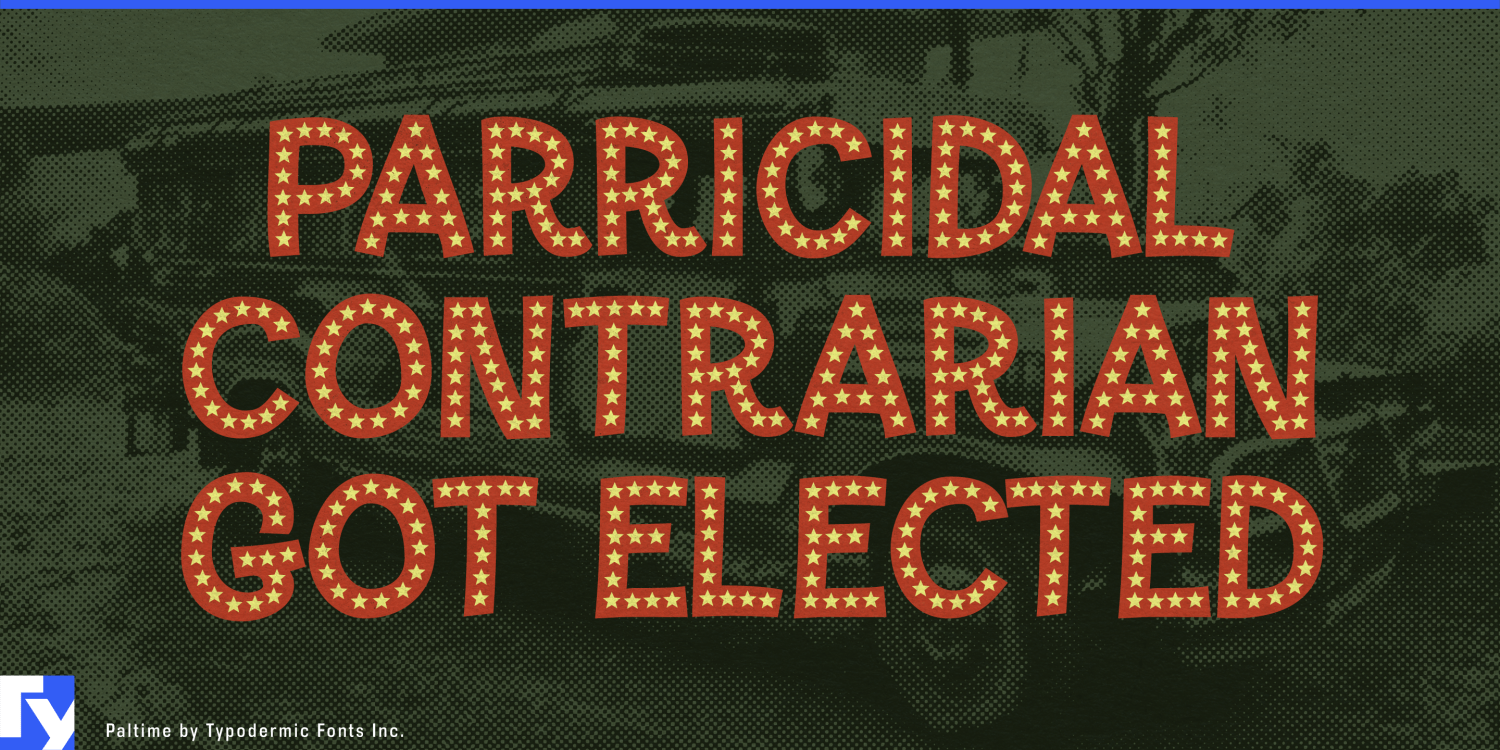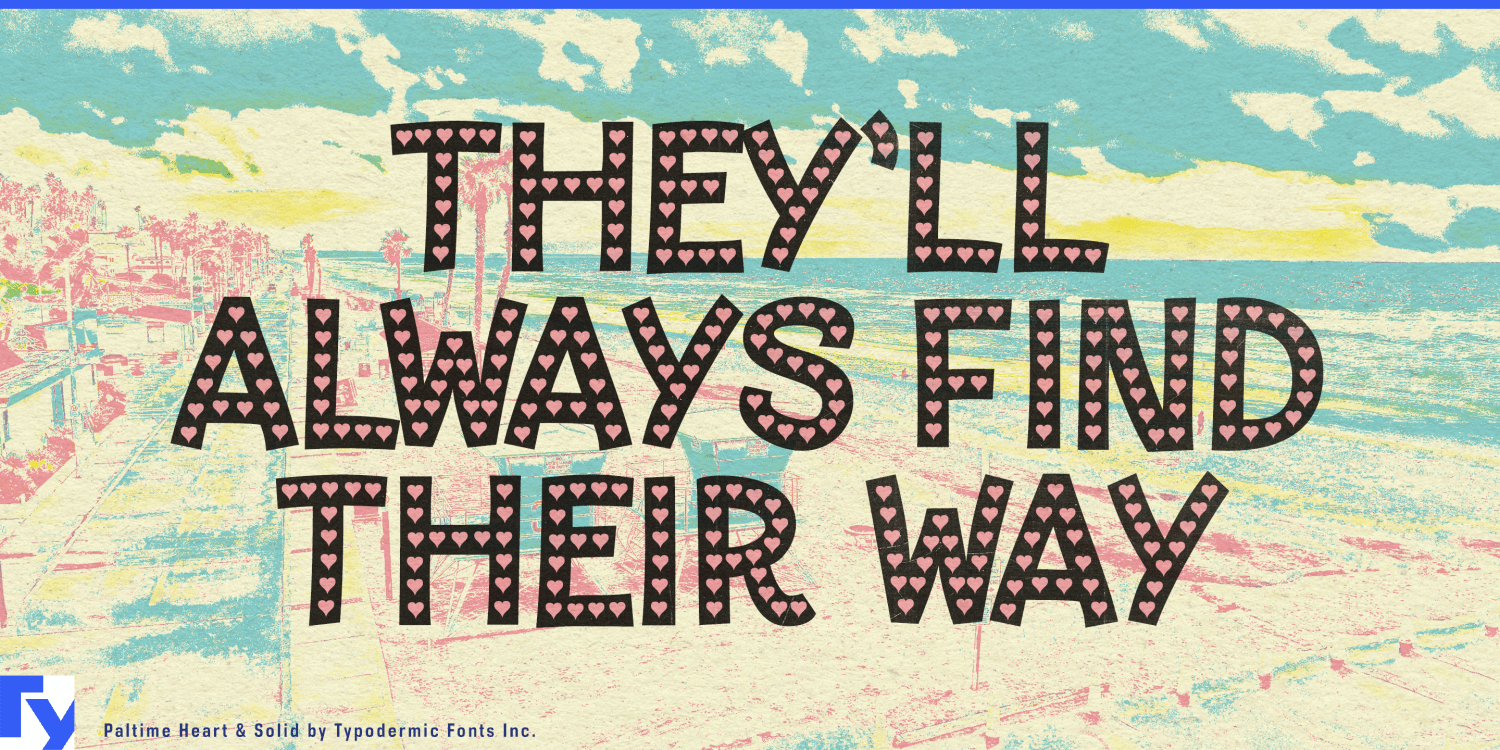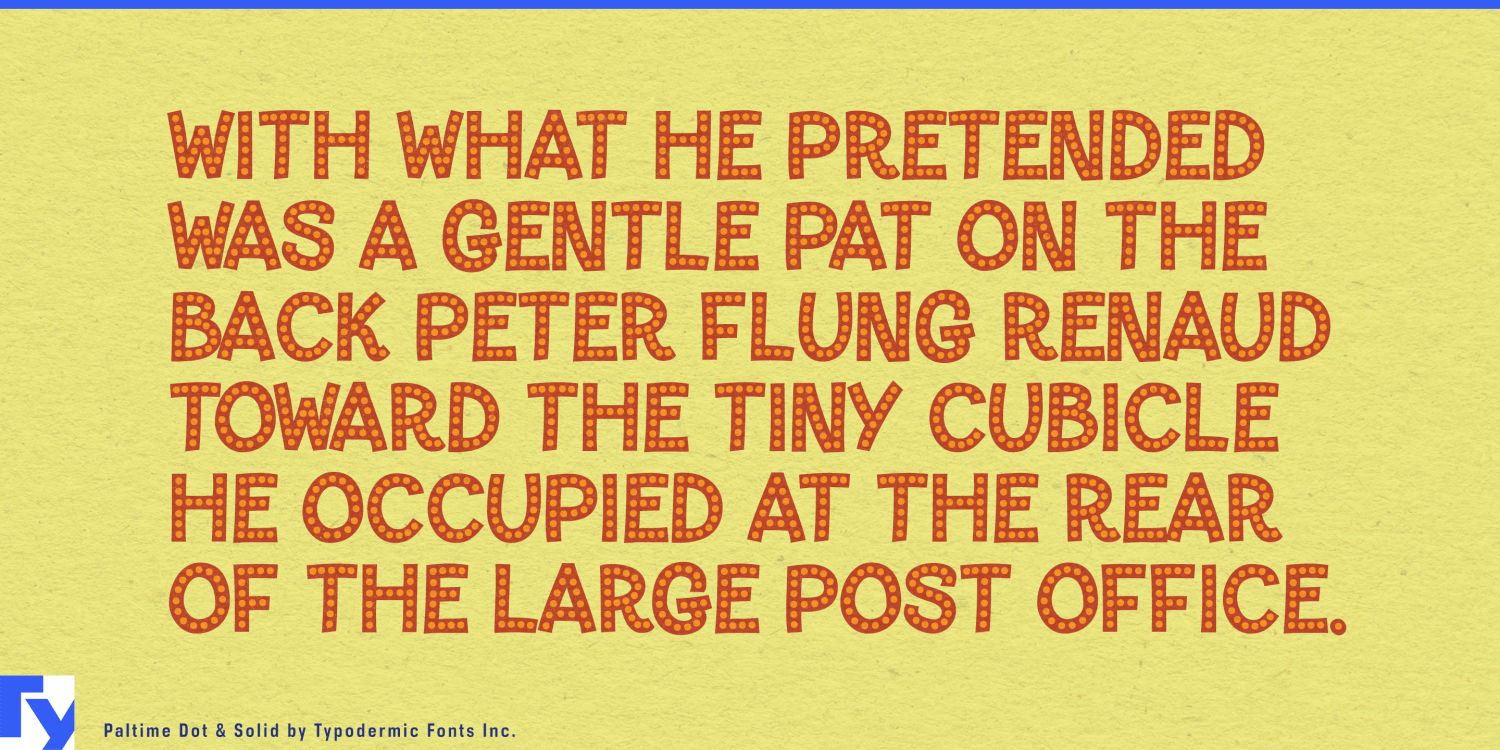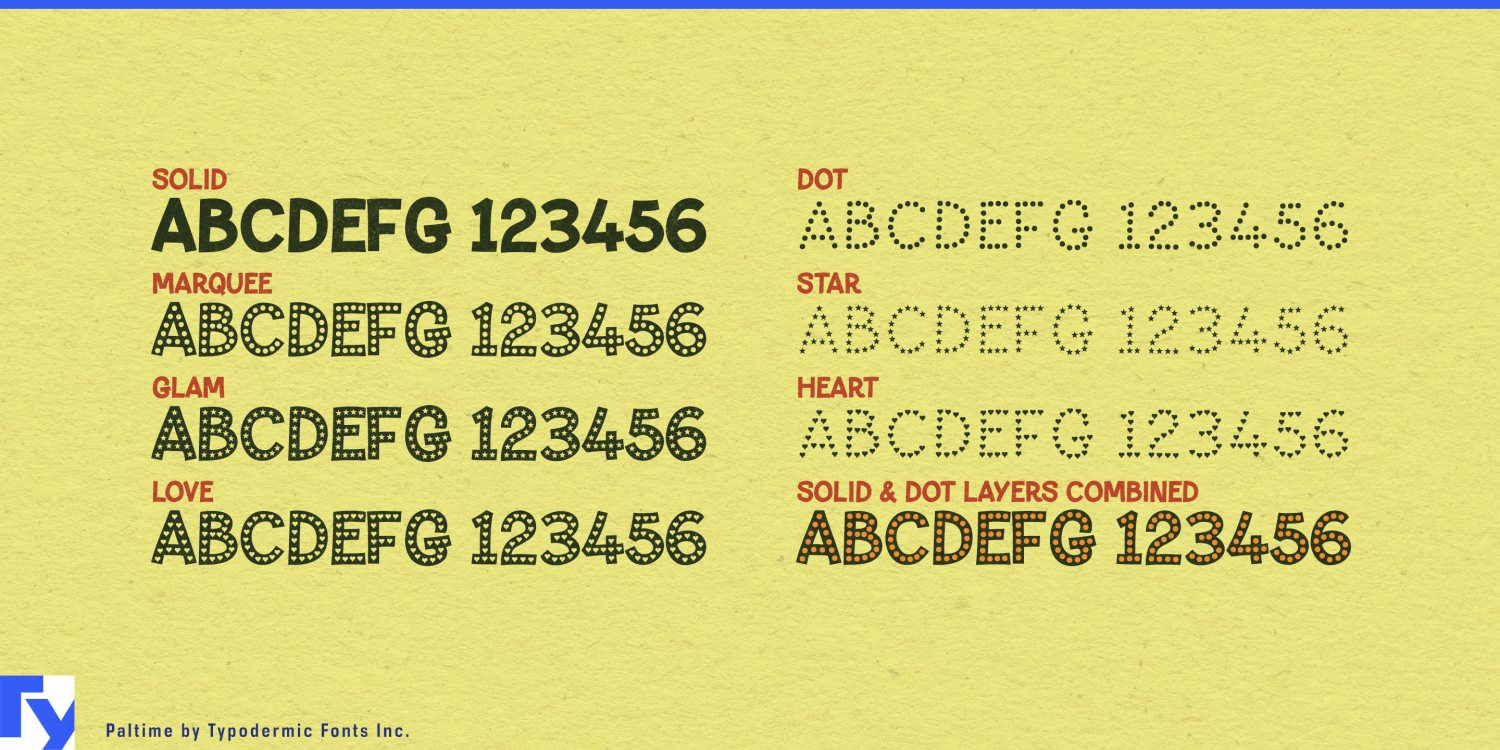
About Paltime
Ladies and gentlemen, step right up to the typographic spectacle of the century! Paltime is here to dazzle and delight your senses. This is a full-blown visual extravaganza that will transform your designs into a carnival of creativity! Paltime struts…